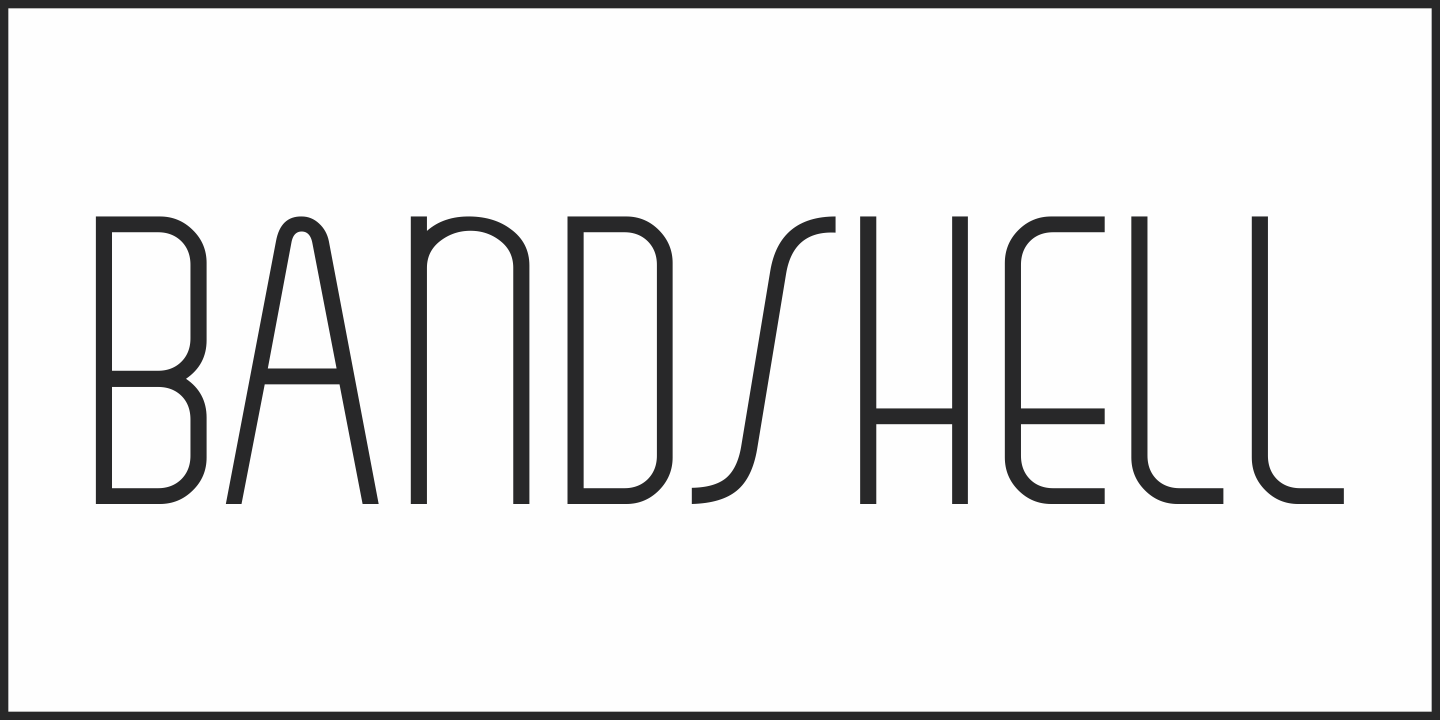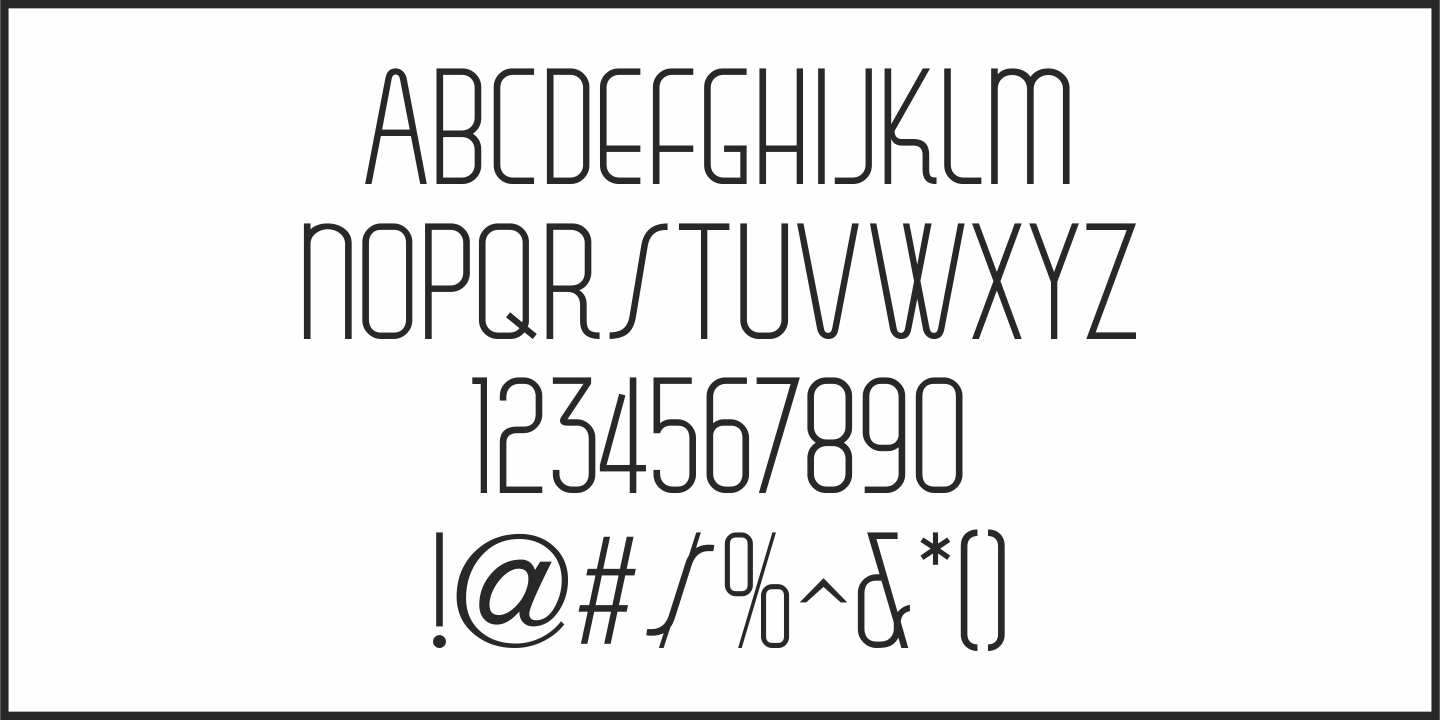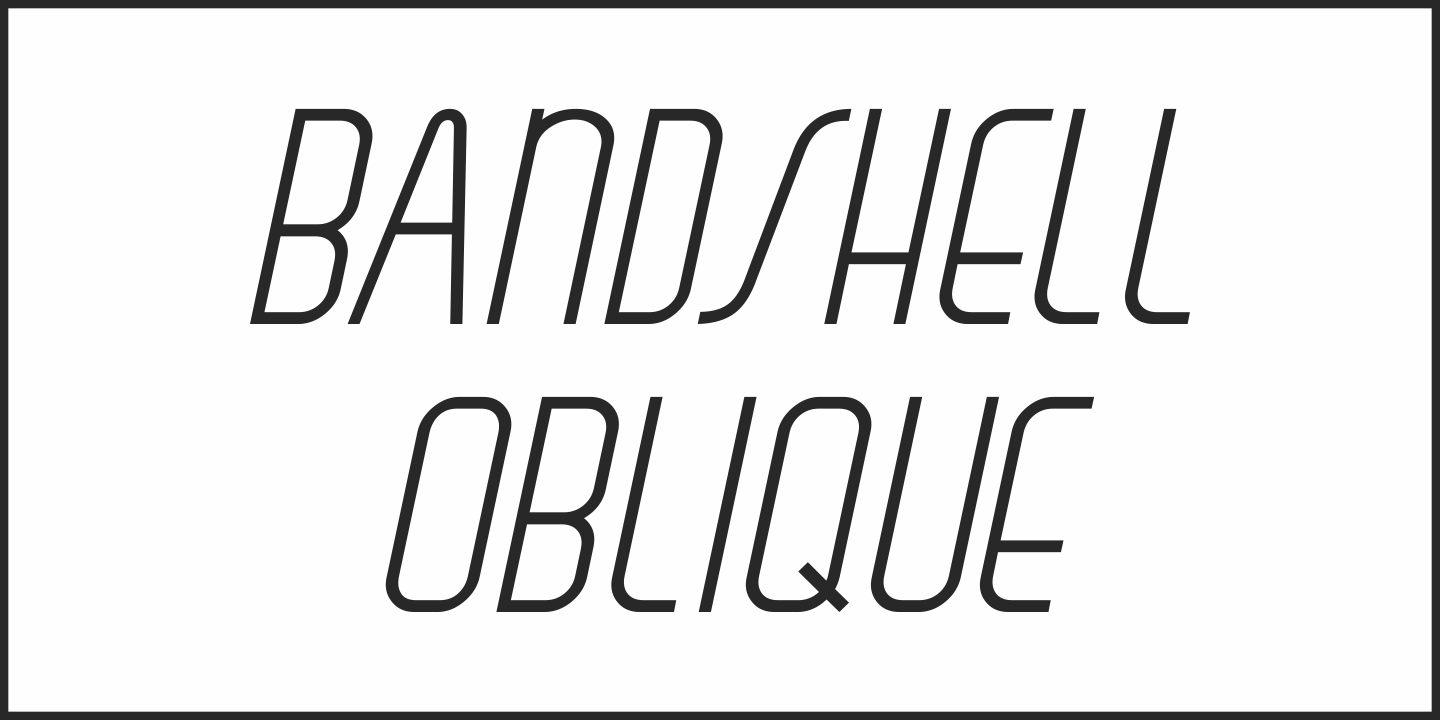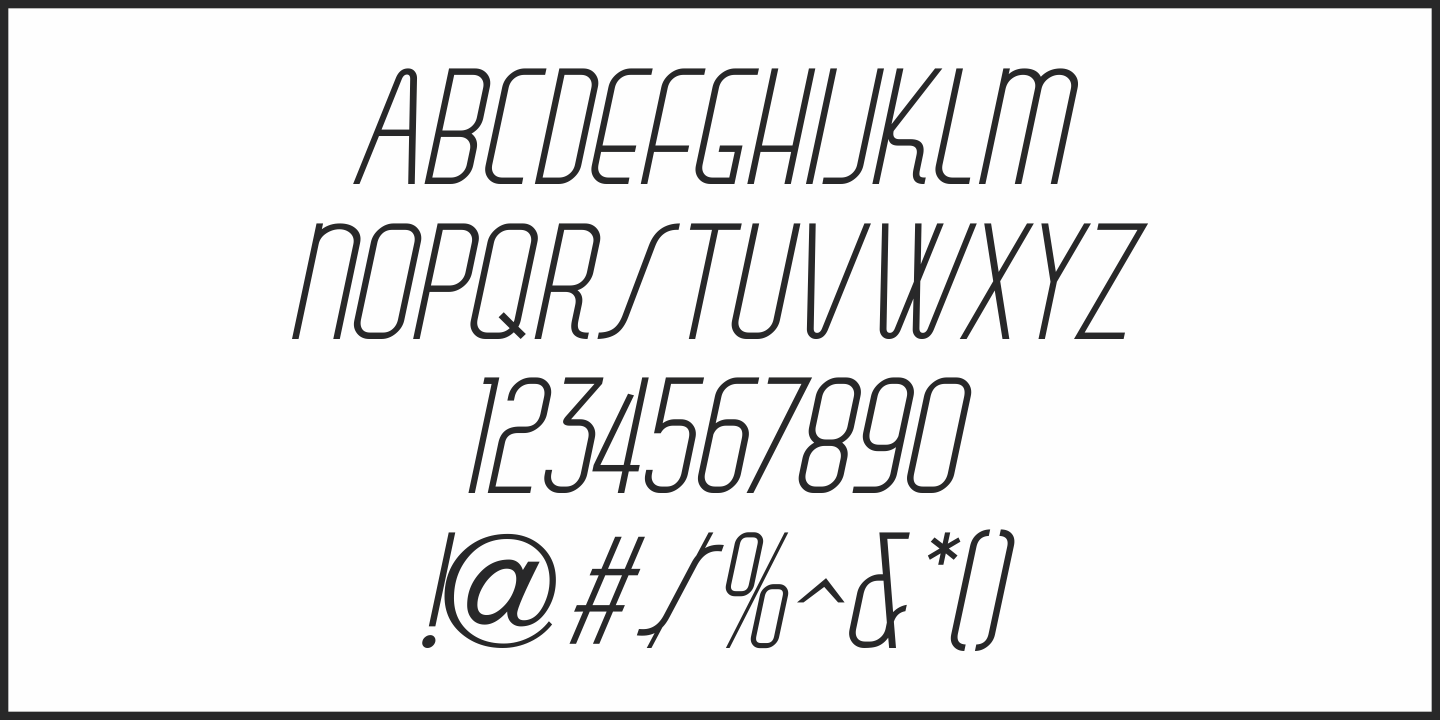
Bandshell
Anyone old enough to remember either the radio or television version of 'The Adventures of Ozzie and Harriet” pictures Ozzie Nelson as the easygoing father figure who never seemed to have a real job – he was always hanging around the house.
In truth, the handsome young Ozzie was a bandleader in the 1930s and 1940s and ended up marrying his 'girl singer', Harriet Hilliard.
A piece of sheet music from 1933 for 'You Have Taken My Heart” was one of the songs Nelson featured with his Columbia Broadcasting System Orchestra. The title was hand lettered in what can only be described as a slightly eccentric Art Deco Sans serif.
Redrawn and cleaned up to reflect more uniform stroke weights, Bandshell JNL is now available in both regular and oblique versions.